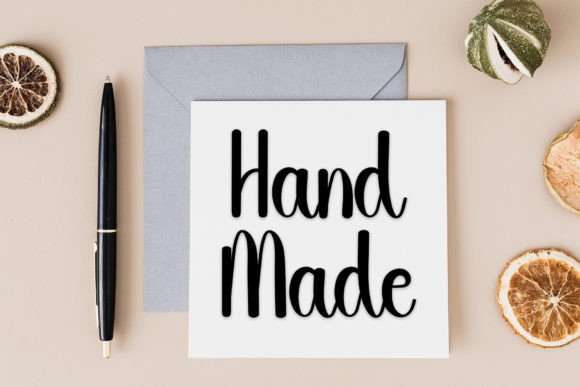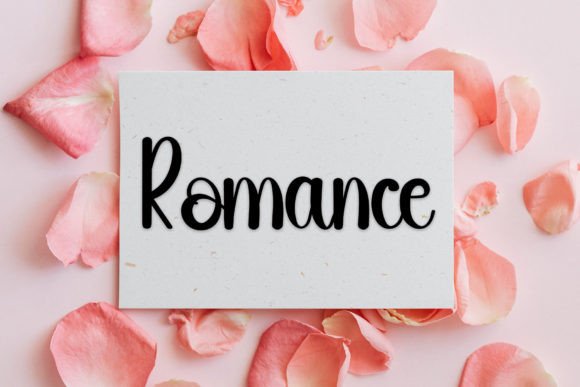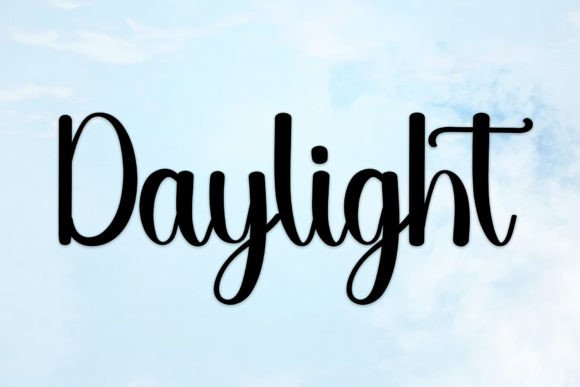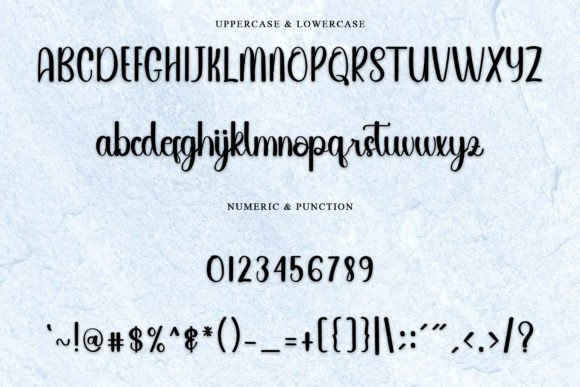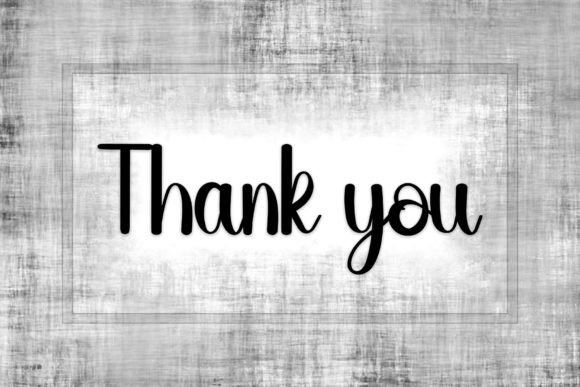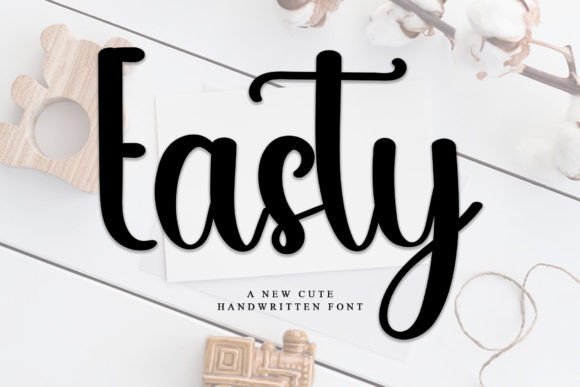
Eastey Font: Elevate Your Designs with Elegance and Timeless Style
Are you on the hunt for a font that exudes elegance, sophistication, and a touch of handmade charm? Look no further than Eastey Font, a stunning handwritten typeface that is sure to capture your heart. With its incredibly distinct and timeless style, Eastey is the perfect addition to any design project, from crafting and stationery to branding and digital media.
The Beauty of Eastey Font
Eastey Font is a neat and beautiful handwritten font that boasts an elegant touch, making it ideal for designers and crafters seeking to add a personal and luxurious feel to their work. Its unique and distinctive style sets it apart from other fonts, ensuring that your designs will stand out from the crowd. Whether you’re creating wedding invitations, packaging, or social media graphics, Eastey Font is sure to make a lasting impression.
Key Features of Eastey Font
- Handwritten Elegance: Eastey Font is a true gem, with a flowing and organic feel that mimics the natural movement of handwriting.
- Distinctive Style: Its incredibly distinct and timeless style makes it perfect for designers seeking to create unique and memorable designs.
- Versatility: Eastey Font is suitable for a wide range of projects, from digital media to print materials, and can be used for both personal and commercial purposes.
- Elegant Touch: The font’s elegant touch adds a touch of sophistication and luxury to any design, making it perfect for high-end branding and marketing materials.
Why Choose Eastey Font?
With so many fonts available, why choose Eastey Font for your next project? Here are just a few reasons why Eastey Font stands out from the rest:
- Unique and Memorable: Eastey Font’s distinctive style ensures that your designs will be remembered long after they’re seen.
- Easy to Read: Despite its elegant and flowing nature, Eastey Font is incredibly easy to read, making it perfect for body text and captions.
- Highly Versatile: Eastey Font can be used for a wide range of projects, from formal and professional to casual and playful.
Eastey Font for Designers and Crafters
Eastey Font is a dream come true for designers and crafters seeking to add a personal touch to their work. With its elegant and timeless style, Eastey Font is perfect for:
- Branding and Marketing: Use Eastey Font to create stunning logos, business cards, and marketing materials that exude elegance and sophistication.
- Crafting and Stationery: Add a touch of handmade charm to your crafting and stationery projects, from wedding invitations to journaling and scrapbooking.
- Digital Media: Use Eastey Font to create eye-catching social media graphics, blog posts, and website headers that stand out from the crowd.
In conclusion, Eastey Font is a truly exceptional handwritten font that is sure to capture your heart. With its elegant touch, distinctive style, and versatility, Eastey Font is the perfect addition to any design project. So why wait? Fall in love with Eastey Font today and start creating spectacular designs that will leave a lasting impression!